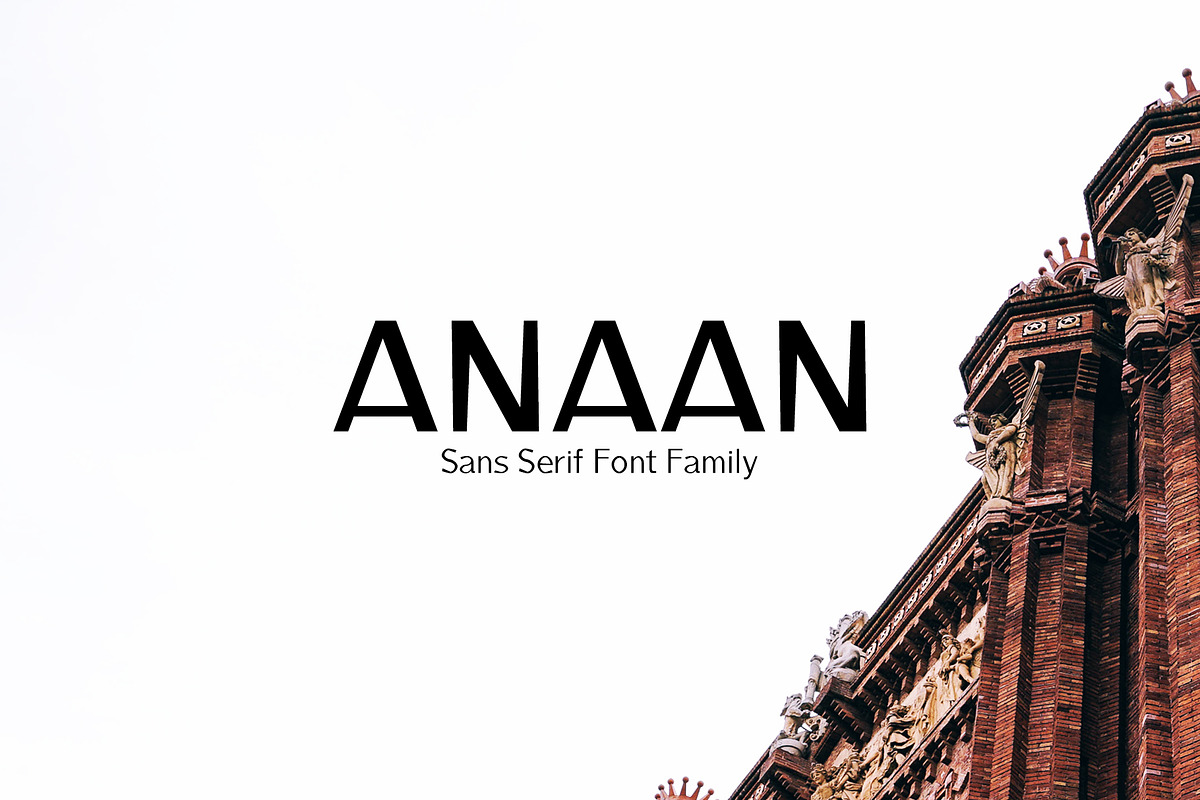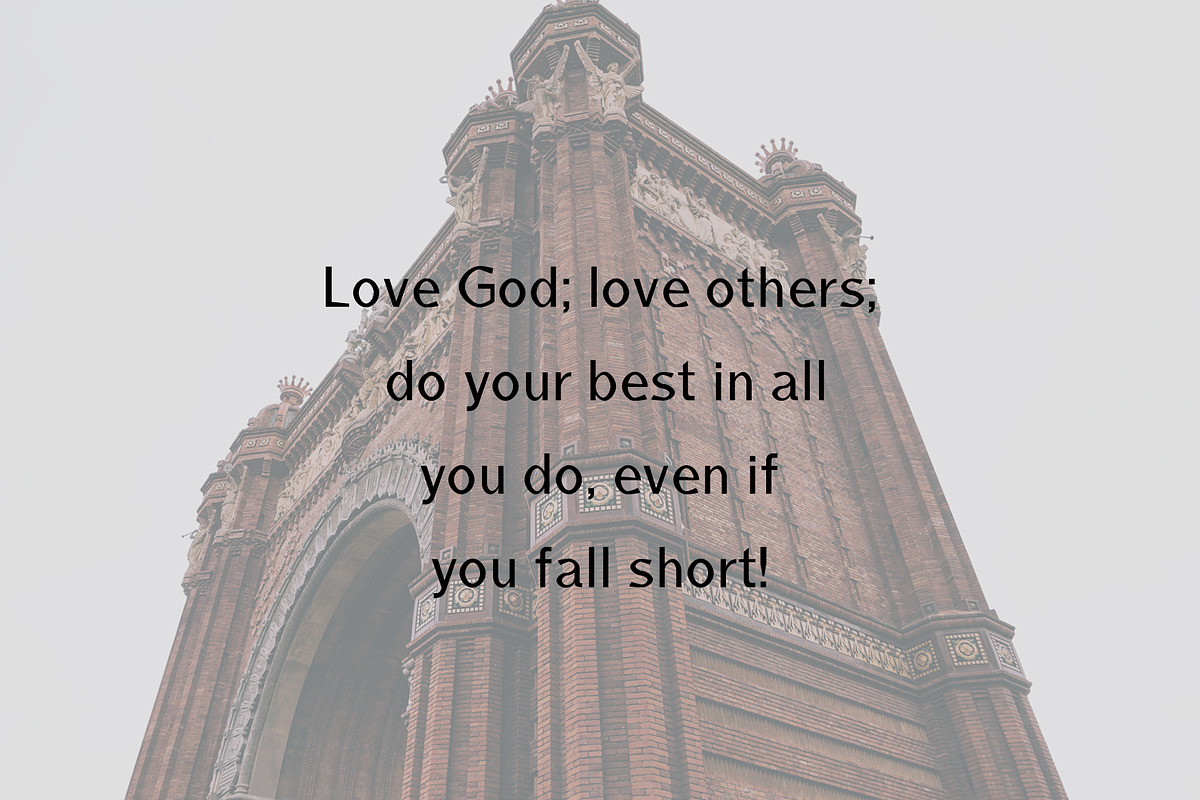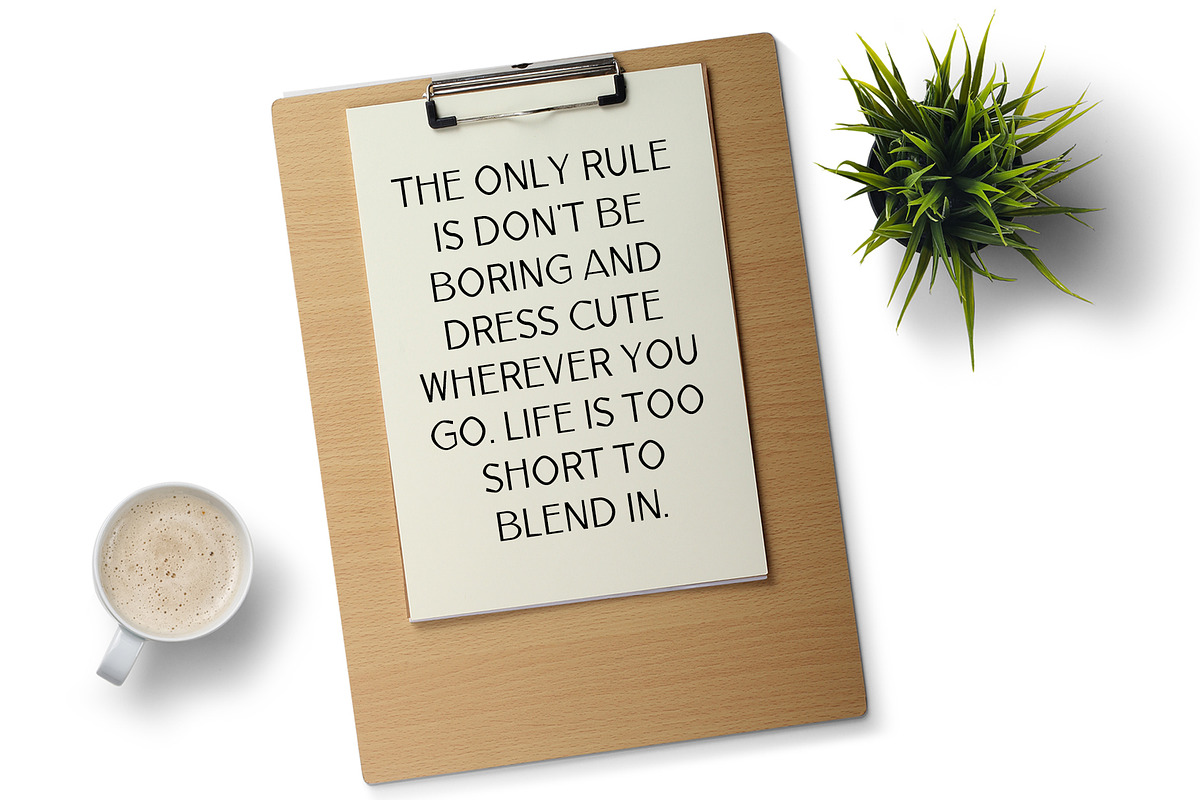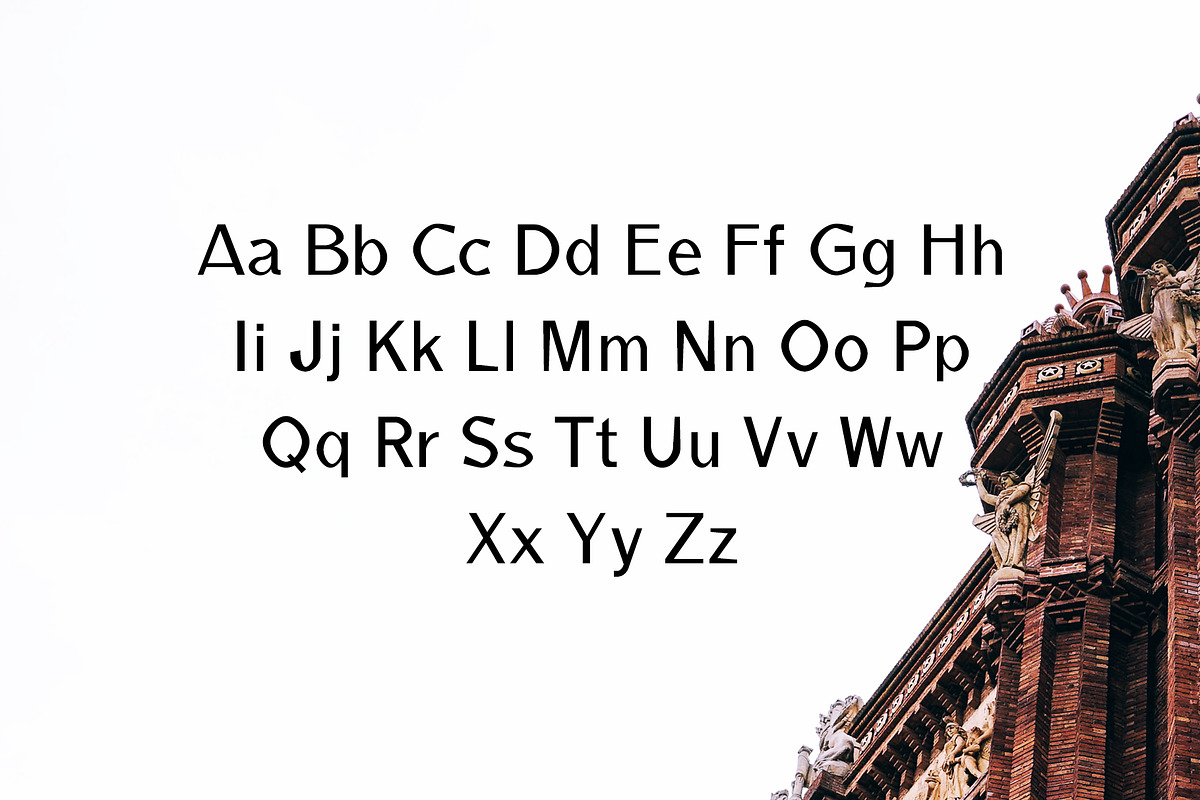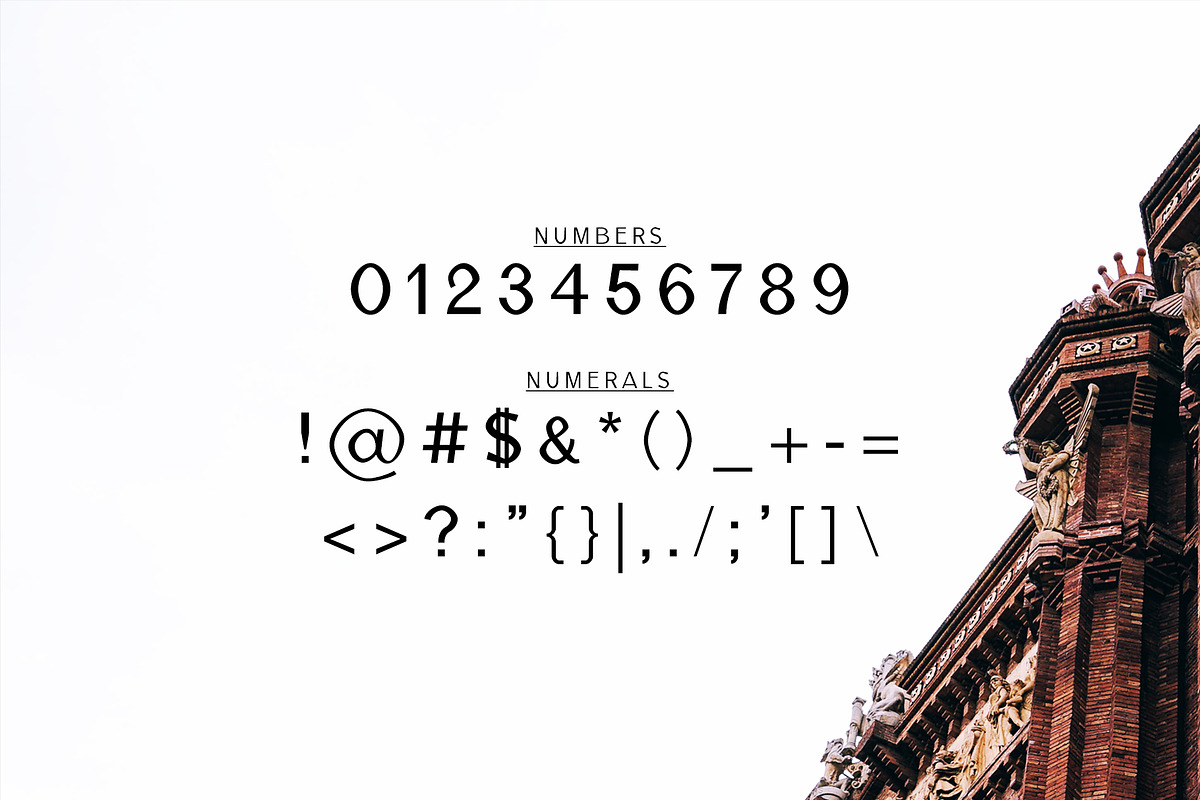
Anaan Sans Serif Font Family
Anaan Sans Serif Font Family by Creativetacos is a font selected for branding, posters, packaging, typography.
- Uppercase Multilingual Letters
- Numbers & Punctuation
- Medium, Bold, Regular, Thin and Light Weights
- Anaan Font Features:
- Anaan Thin
- Anaan Light
- Anaan Regular
- Anaan Medium
- Anaan Bold
Why Anaan Sans Serif Font Family is worth a look
Anaan Sans Serif Font Family by Creativetacos fits naturally into Branding, posters, packaging, typography.